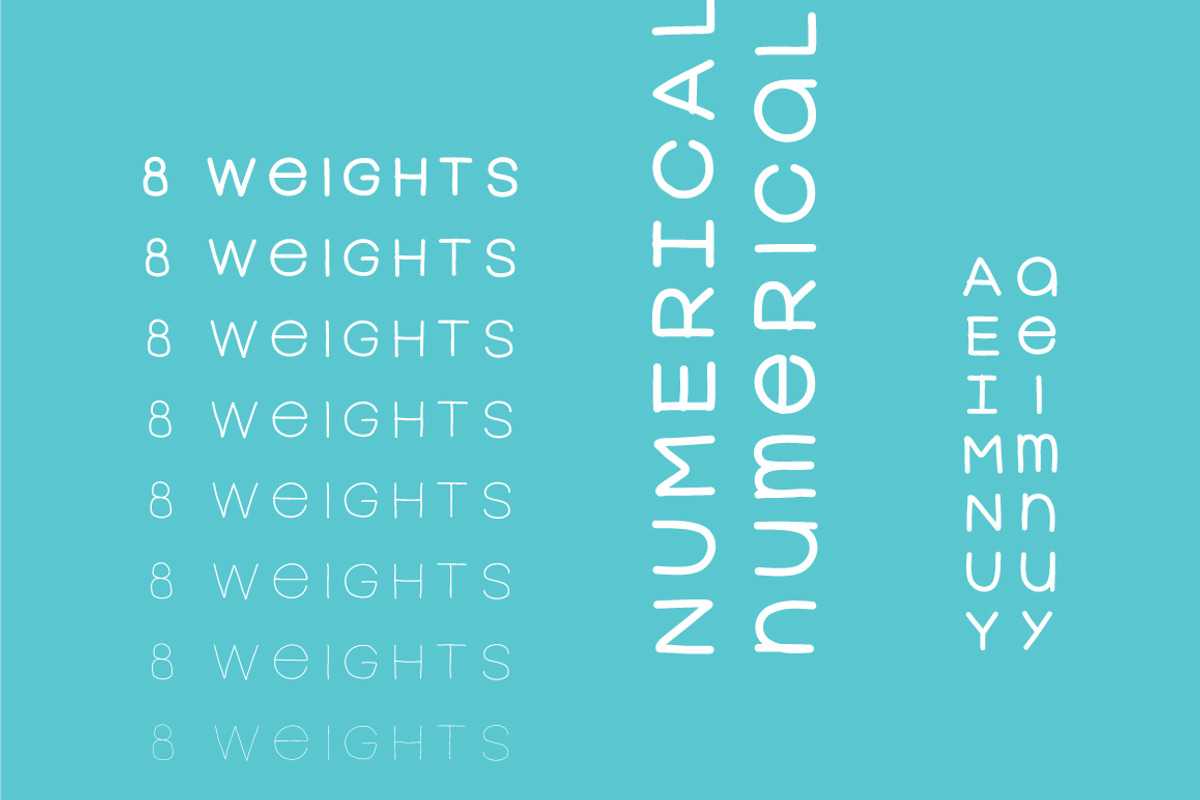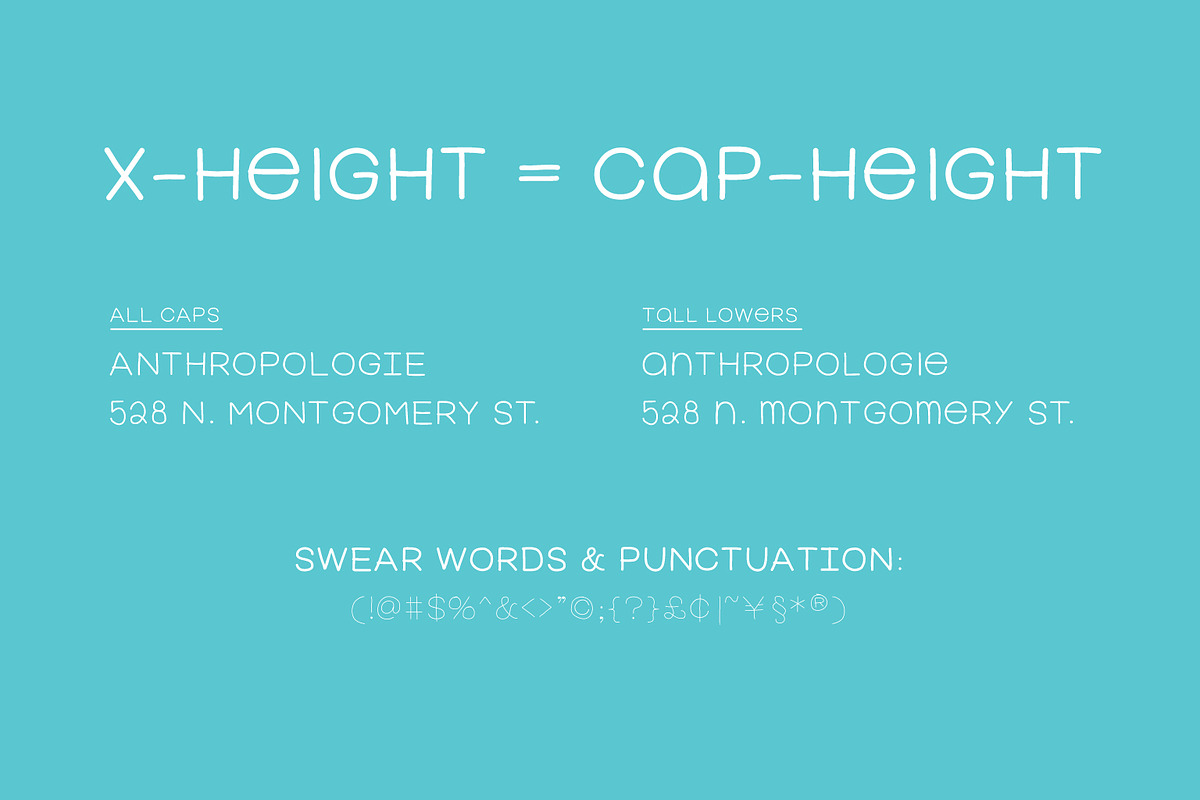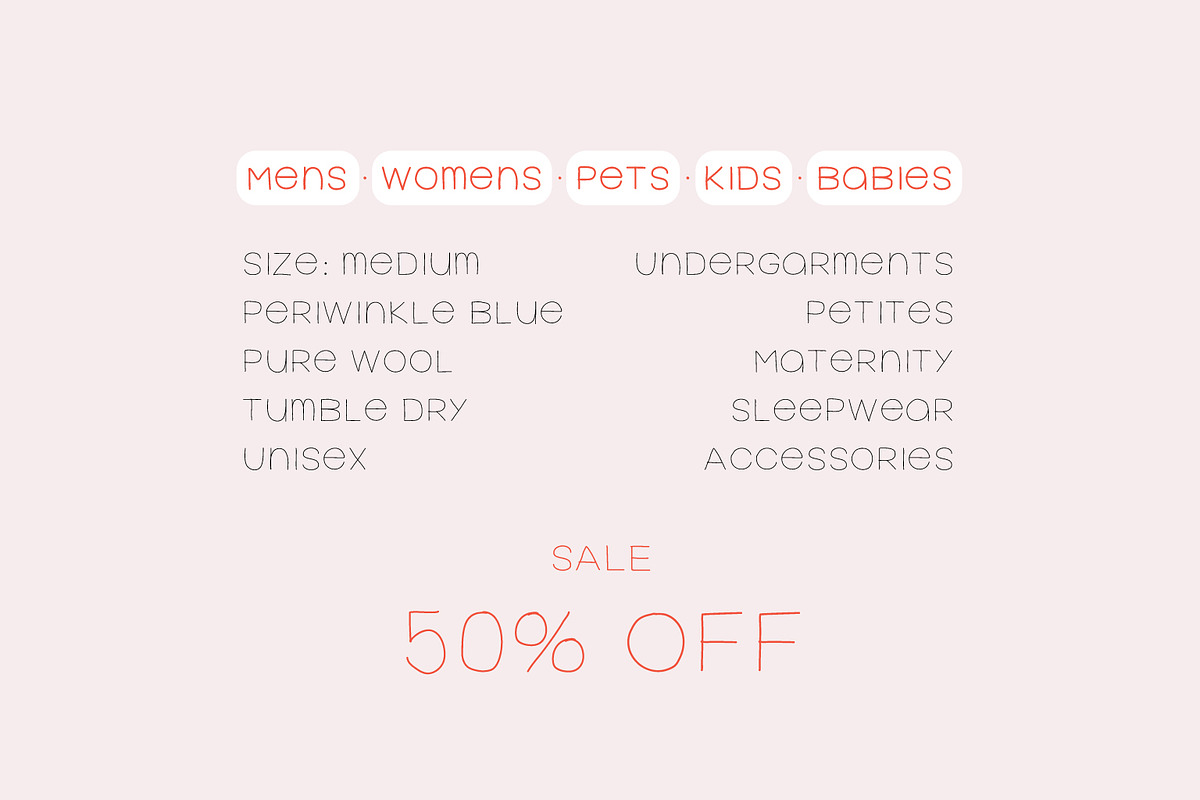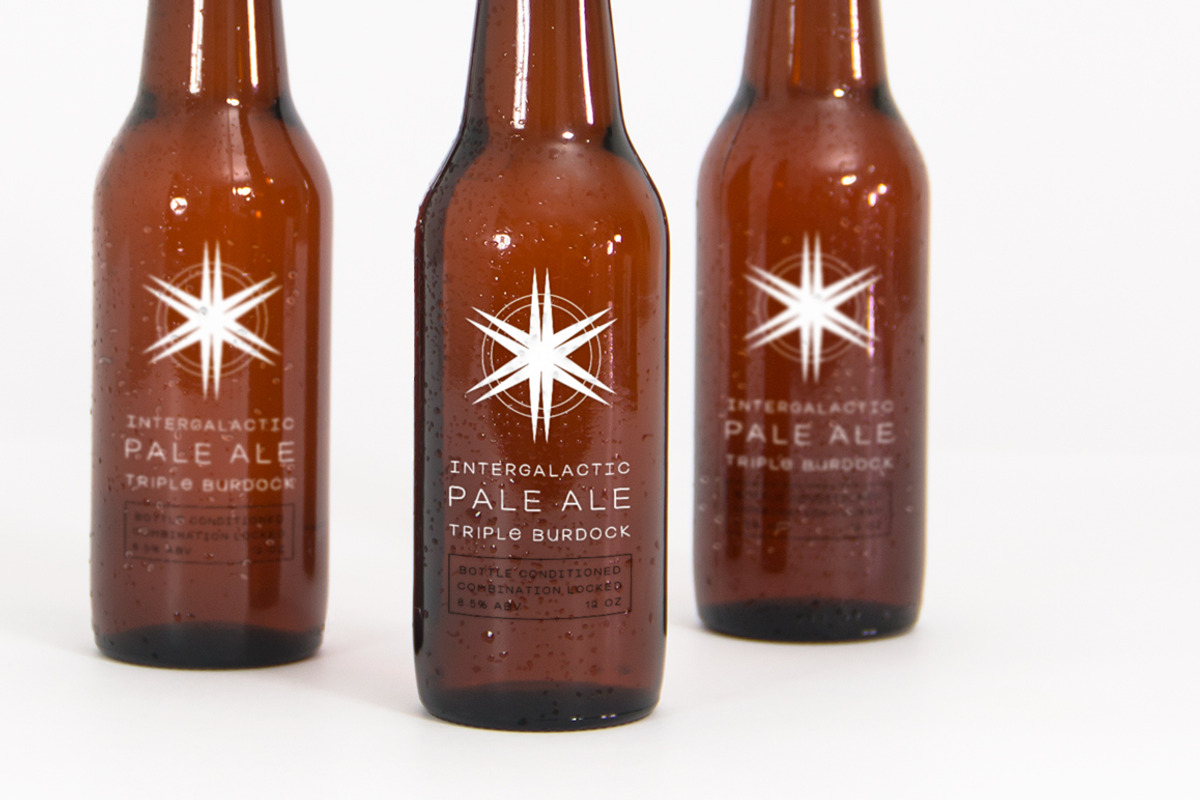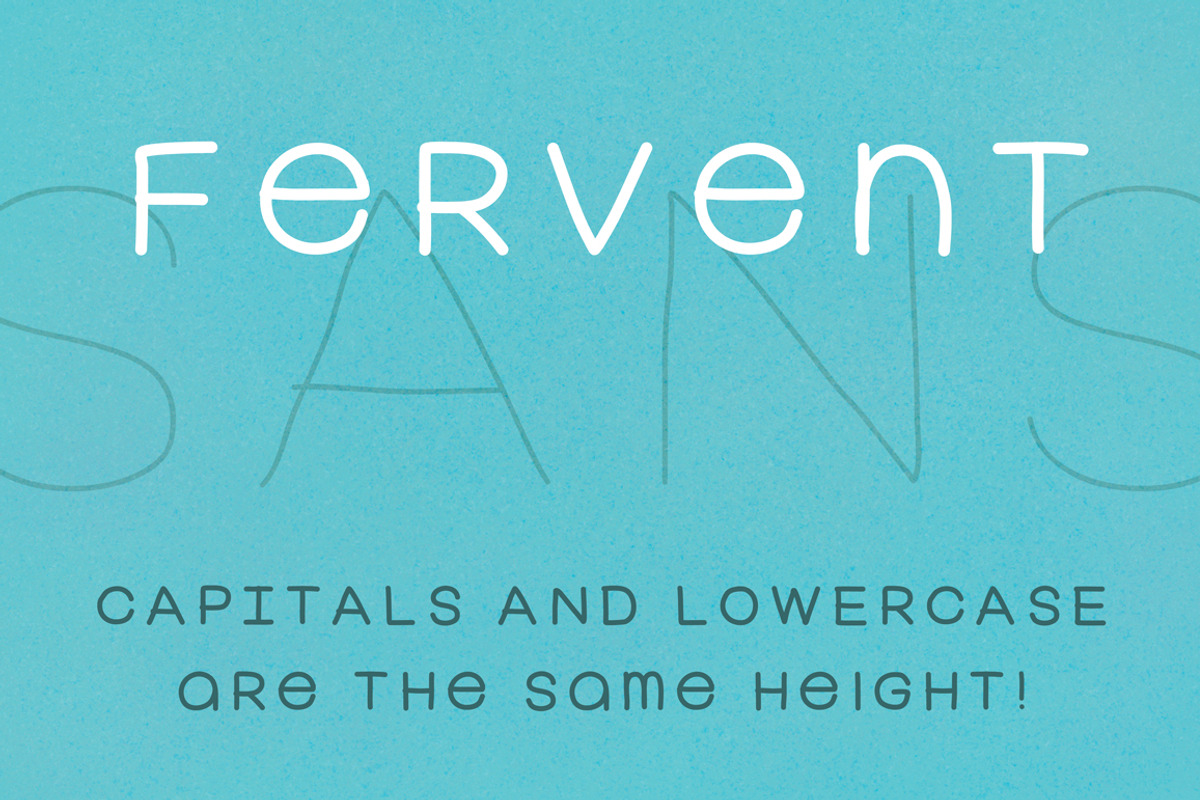
Fervent Sans [8 weights]
Finesse your voicing using 8 differently toned font weights, now at dollar store prices! Grab these now to give your words character!
Fervent Sans will give a personal touch to posters, store signs, and logo designs. It's a display typeface that's comes in 8 weights, and is inspired by handwriting and industrial signage. It's a versatile font that looks friendly in its full-sized lowercase, and classic in uppercase.
FEATURES: Uppercase for the serious business. Mixed lowercase for the fun stuff. 8 gradual skinny weights for great control. universal height: X-height is the same as Cap height.